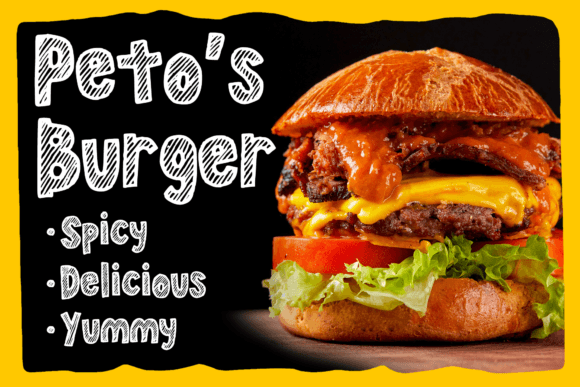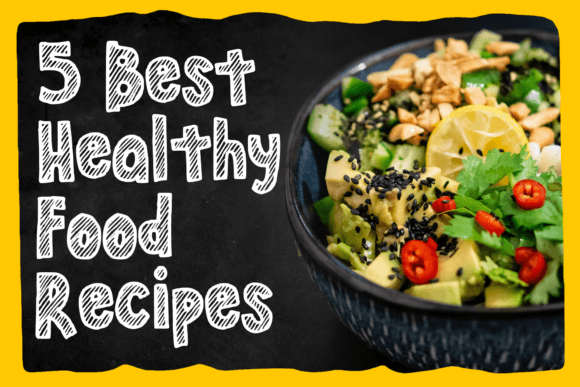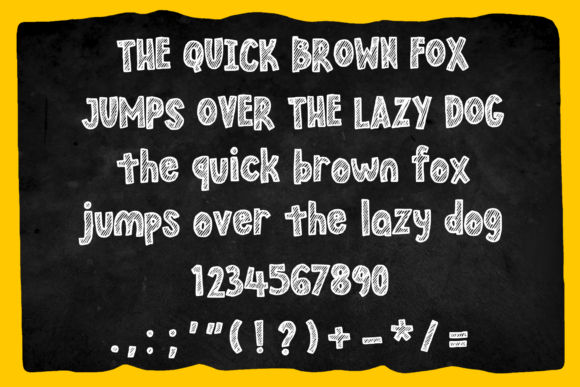
The Perfect Canvas: Unlocking the Power of Chalk Brother Font
Remember that moment when you stumbled upon the perfect font, and your entire design just came alive? For designers, it’s like finding a treasure trove of creative possibilities. And today, we’re excited to introduce you to the Chalk Brother Font, a playful and versatile display font that’s about to revolutionize the way you create.
This charming chalk-themed font is more than just a pretty face – it’s a game-changer for designers looking to add a casual touch to their projects. From t-shirts to book designs, restaurant menus to blog writing, and even stickers, the Chalk Brother Font is the perfect tool to make your creations scream for attention. Whether you’re a seasoned pro or just starting out, this font is sure to fall in love with its incredibly cool style.
Key Features of Chalk Brother Font
- Unique Characteristics: Chalk Brother Font features a distinctive chalkboard-inspired aesthetic, with subtle texture and imperfections that evoke a sense of hand-drawn charm.
Review of Chalk Brother Font
Overall, I’m quite impressed with the Chalk Brother Font. It’s a fun and playful sans-serif font that works well for casual and creative projects. ✨
- It’s highly versatile and can be used for a wide range of applications, from logos to social media graphics.
- The font is highly customizable, making it easy to adjust the weight, size, and color to suit your design needs.
- The Chalk Brother Font is also highly legible, making it a great choice for text-heavy designs.
- The font may not be suitable for formal or professional projects, as it can come across as too casual or playful.
- The font’s quirky nature may not appeal to everyone, so it’s essential to use it in the right context.
- The font may not be as suitable for body text, as it can be a bit too busy and overwhelming for large amounts of text.
Overall, I think the Chalk Brother Font is a great choice for designers looking for a fun and creative sans-serif font. It’s perfect for projects where you want to add a bit of personality and whimsy. With its high level of customization and versatility, it’s definitely worth considering for your next design project.
The Chalk Brother Font is ideal for creating a playful, handwritten look. Use it for:
- Restaurant or cafe menus
- Event invitations
- Personalized gift tags
- Children’s party decorations